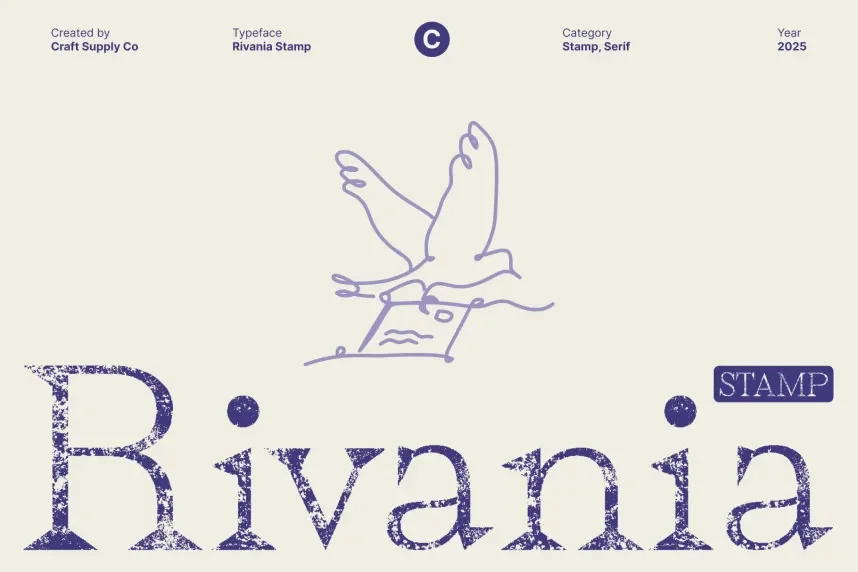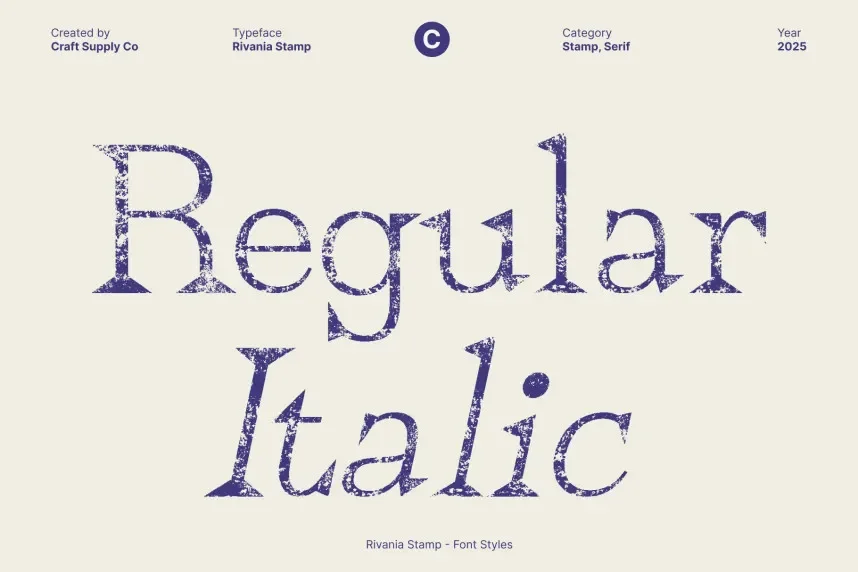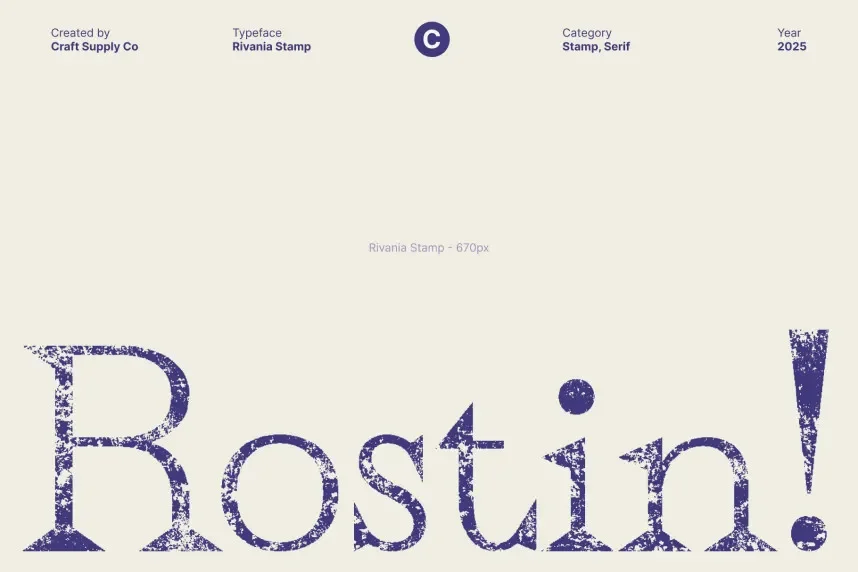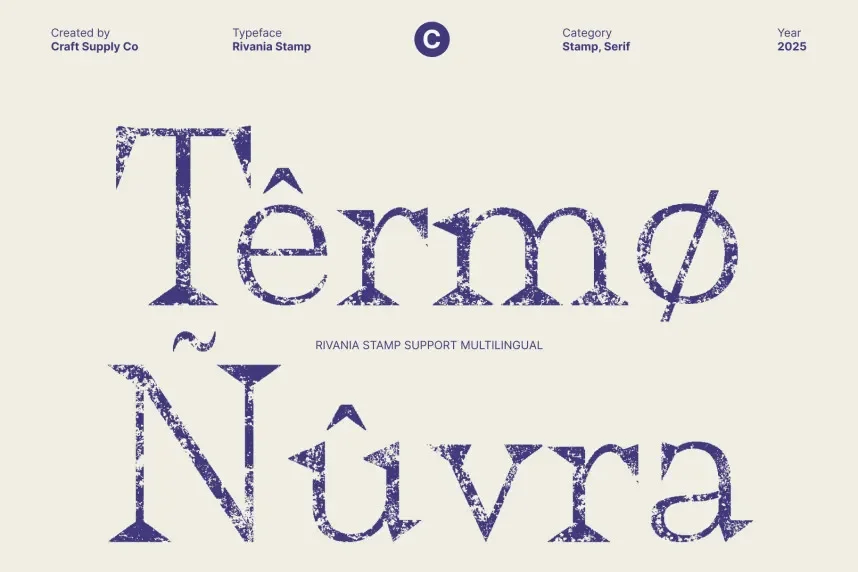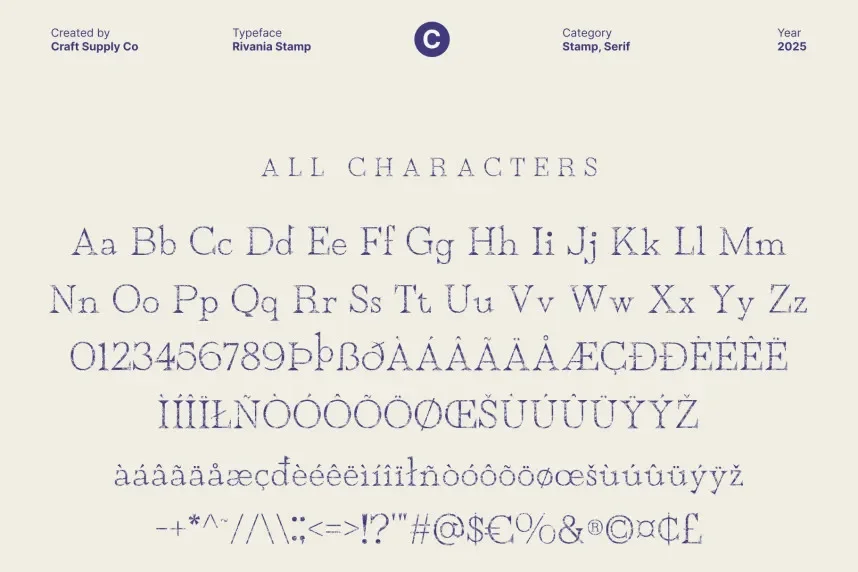
Rivania Stamp Font addresses the need for a vintage, distressed font that evokes a sense of authenticity and history. It’s perfect for designs requiring a retro or industrial look.
Rivania is a stamp-style font with rough, uneven edges and irregular strokes, simulating the effect of old stamped letters. Its textured, hand-crafted design is ideal for creating vintage-inspired projects.